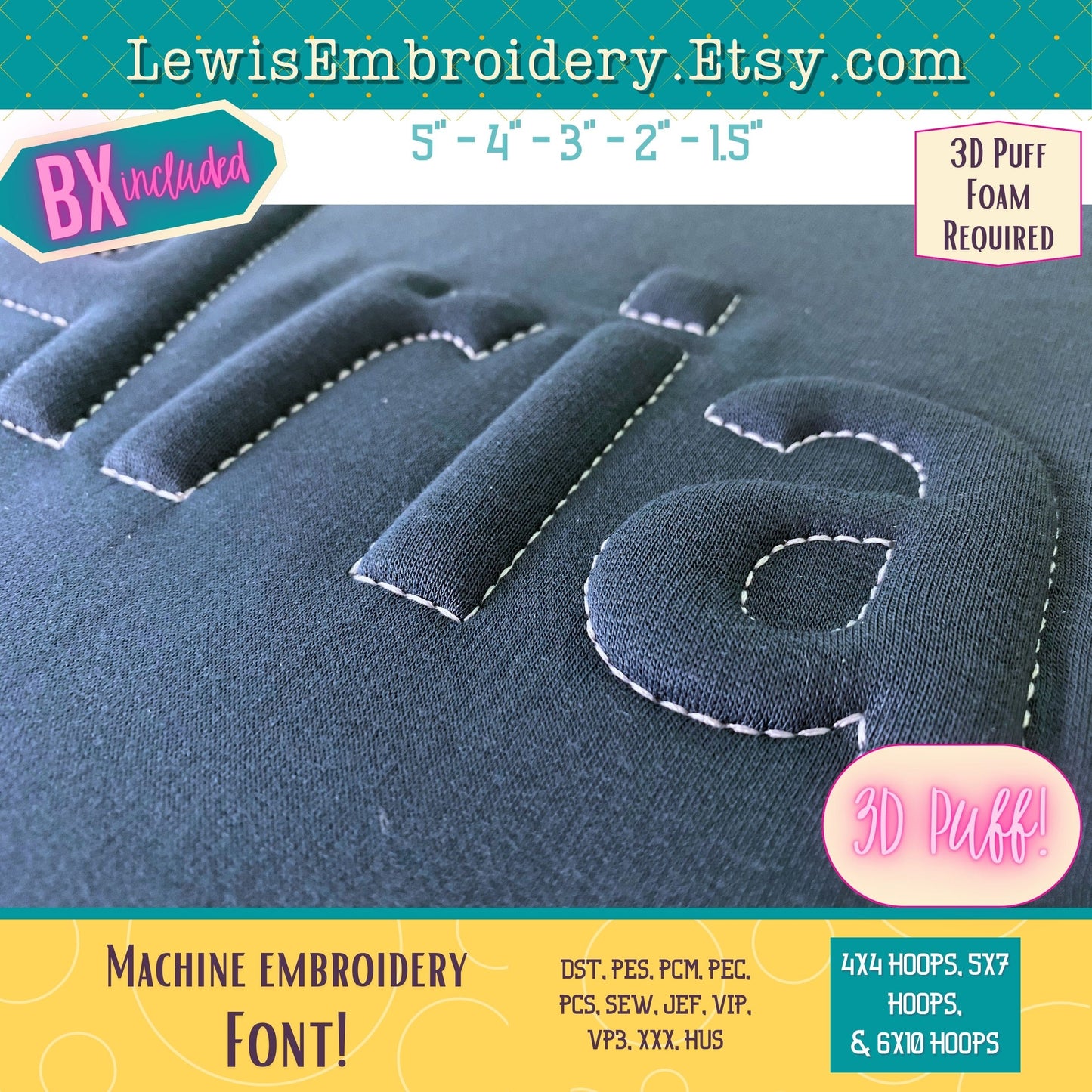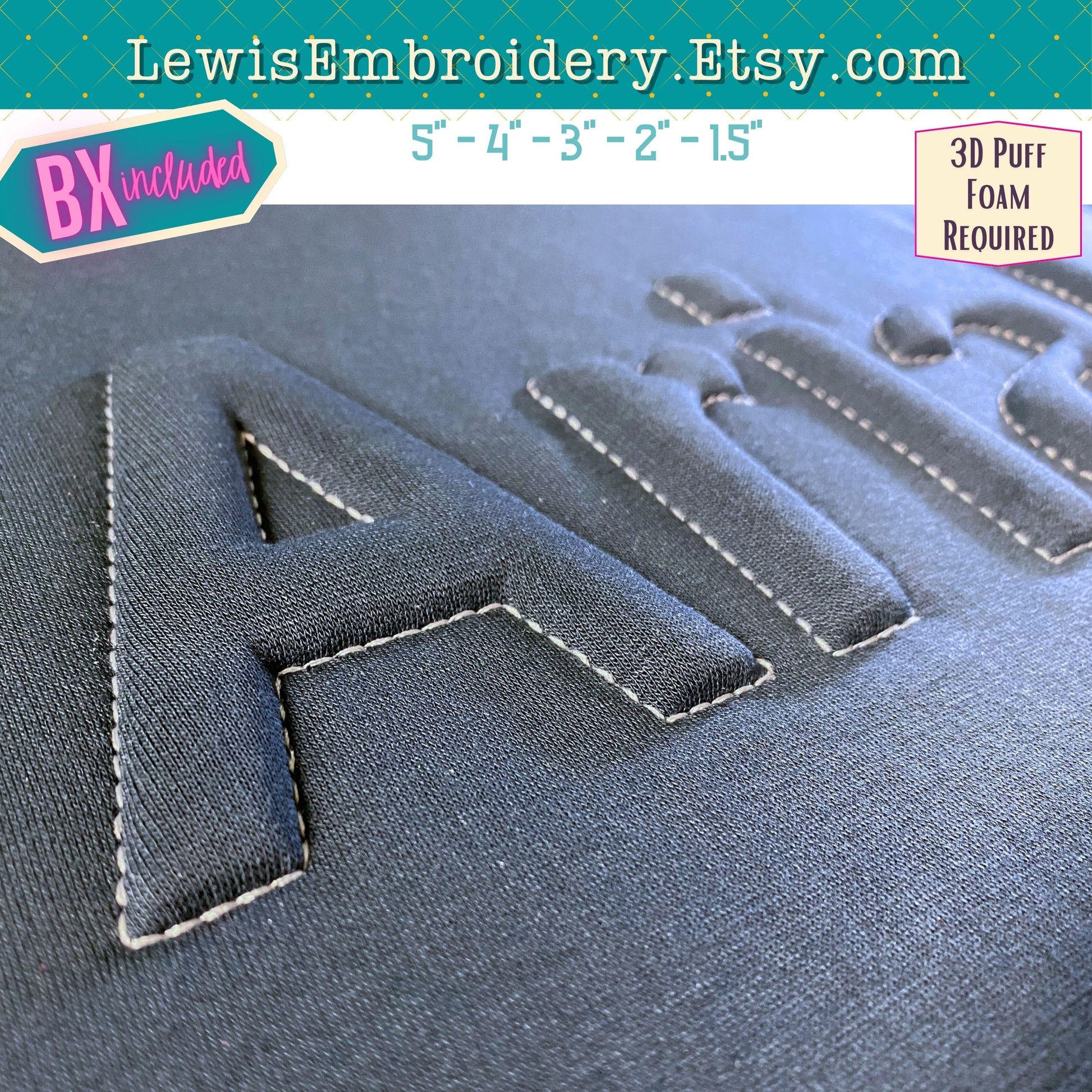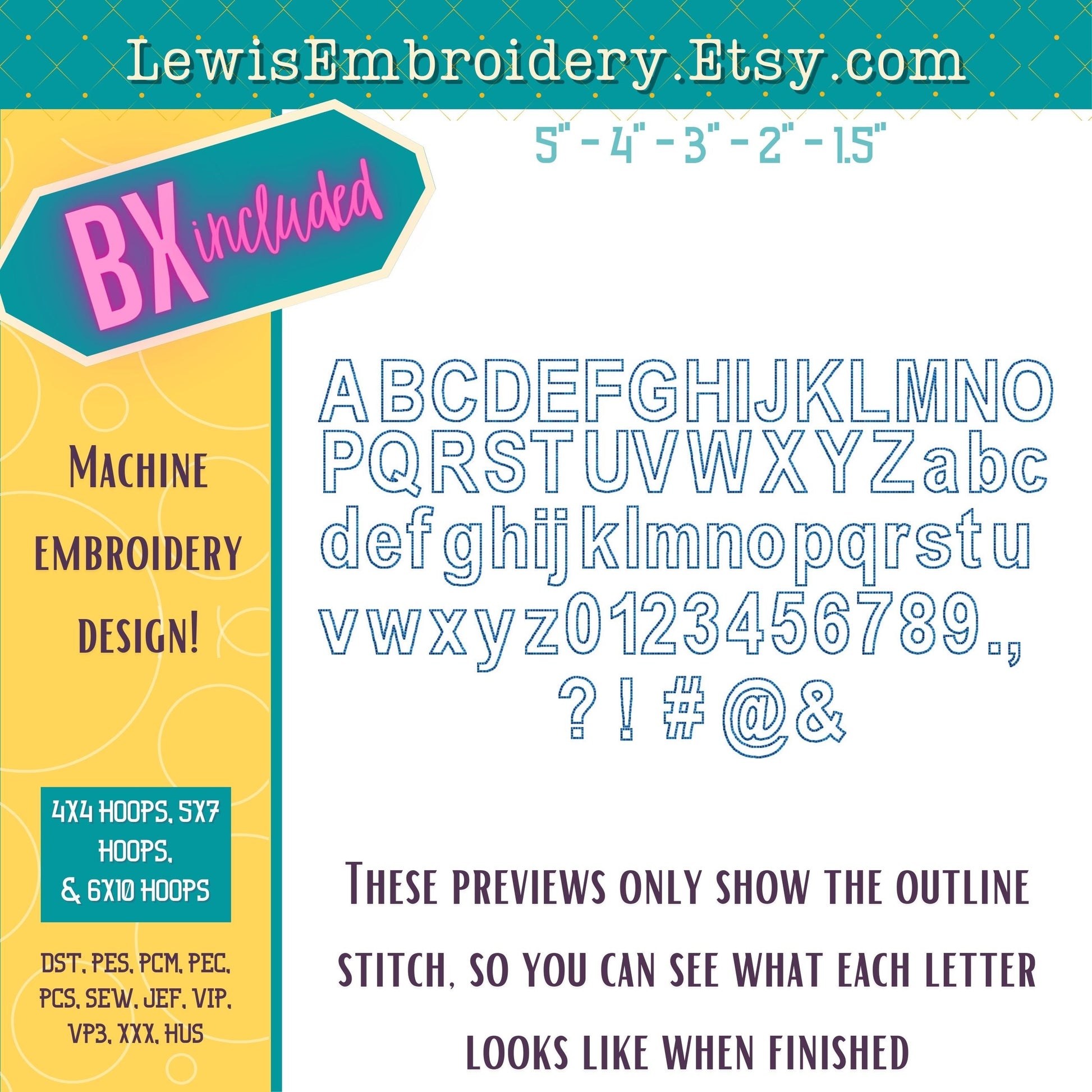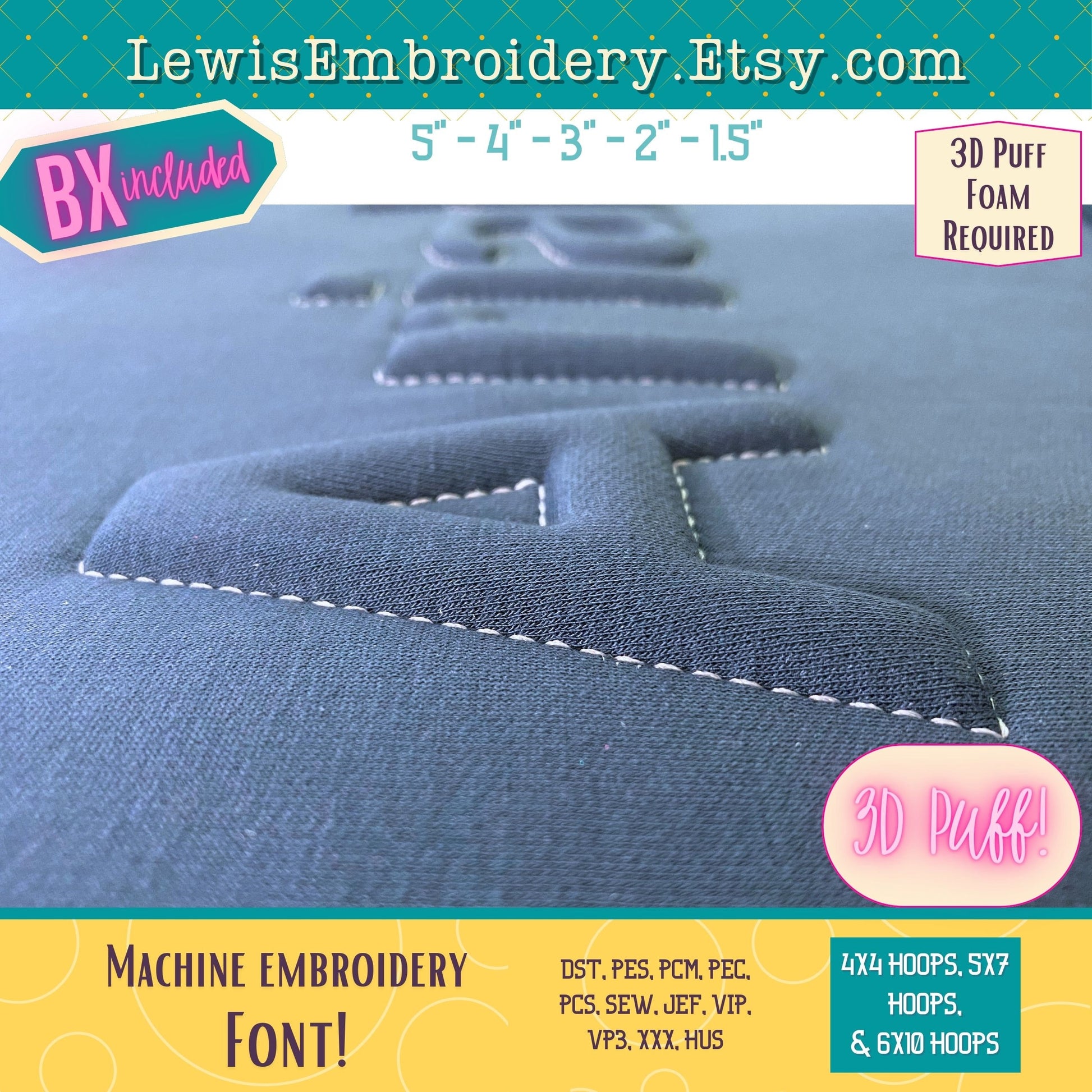
Embossed 3D Puff, Machine Embroidery, Arial Font - With BX - (PDF Tutorial Included)
Embossed 3D Puff Embroidery Font - Puff Foam Embroidery Font - Puffy Outline Font - Arial Embroidery Font - Simple Block Font - BX Font
This font was designed to be used with a weighted stretchy fabric, such as sweatshirt material. The quality of the outcome cannot be guaranteed if you use very lightweght fabric, or fabric with no stretch.